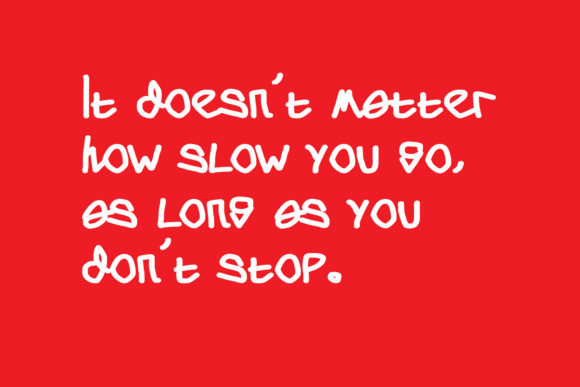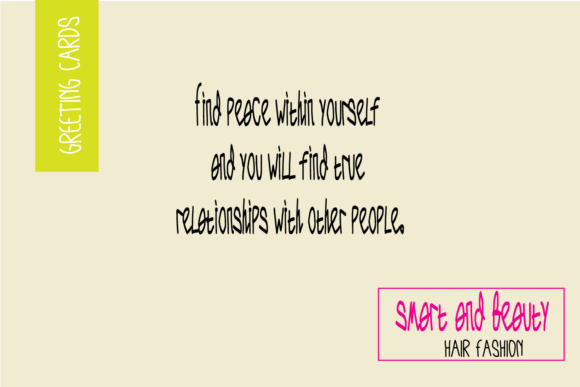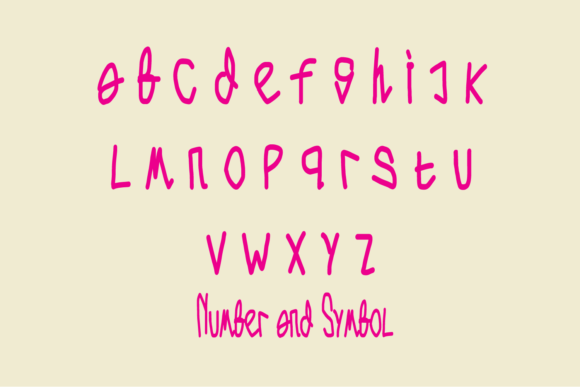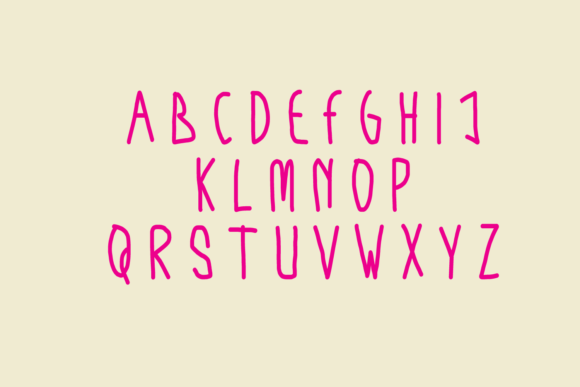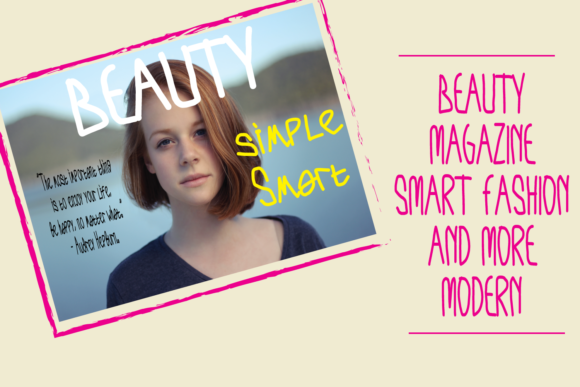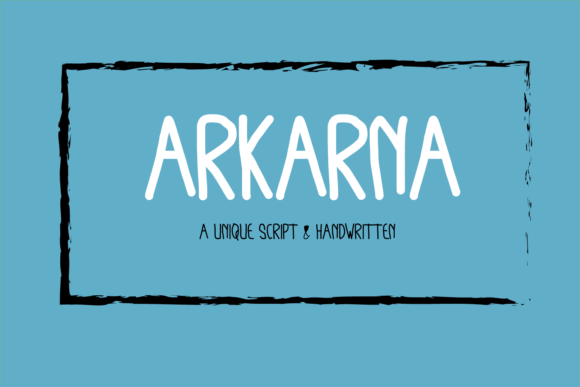
The Quirky Charm of Arkarna Font: A Designer’s Delight
I still remember the time I was working on a whimsical craft project for a client who wanted a playful, handmade feel. I had spent hours scouring the internet for the perfect font, but nothing seemed quite right. That was when I stumbled upon Arkarna Font, a quirky looking handwritten font that instantly caught my eye. Its playful and childish style made it incredibly adept for a variety of designs, and I knew I had found the perfect fit.
An Honest Review of Arkarna Font
- ✨ Unique and quirky handwritten style that’s perfect for creative projects
- 🎉 Excellent for designs that require a playful, childish feel
- 💻 Works beautifully on both digital and print materials
While Arkarna Font is an excellent choice for many designs, there are a few things to keep in mind:
- 🤔 Some letters may appear a bit inconsistent in terms of sizing and spacing, which can be distracting if not used carefully
- ⚠️ Not ideal for formal or professional designs, as it may come across as too playful or immature
The Backstory of Arkarna Font
Arkarna Font was designed with the intention of creating a playful and childish font that would bring a smile to the user’s face. The designer drew inspiration from their own childhood, where handwritten letters and notes were a common occurrence. The result is a font that’s both unique and relatable.
| Is Arkarna Font easy to read? | Yes, Arkarna Font is highly legible, even at smaller font sizes. |